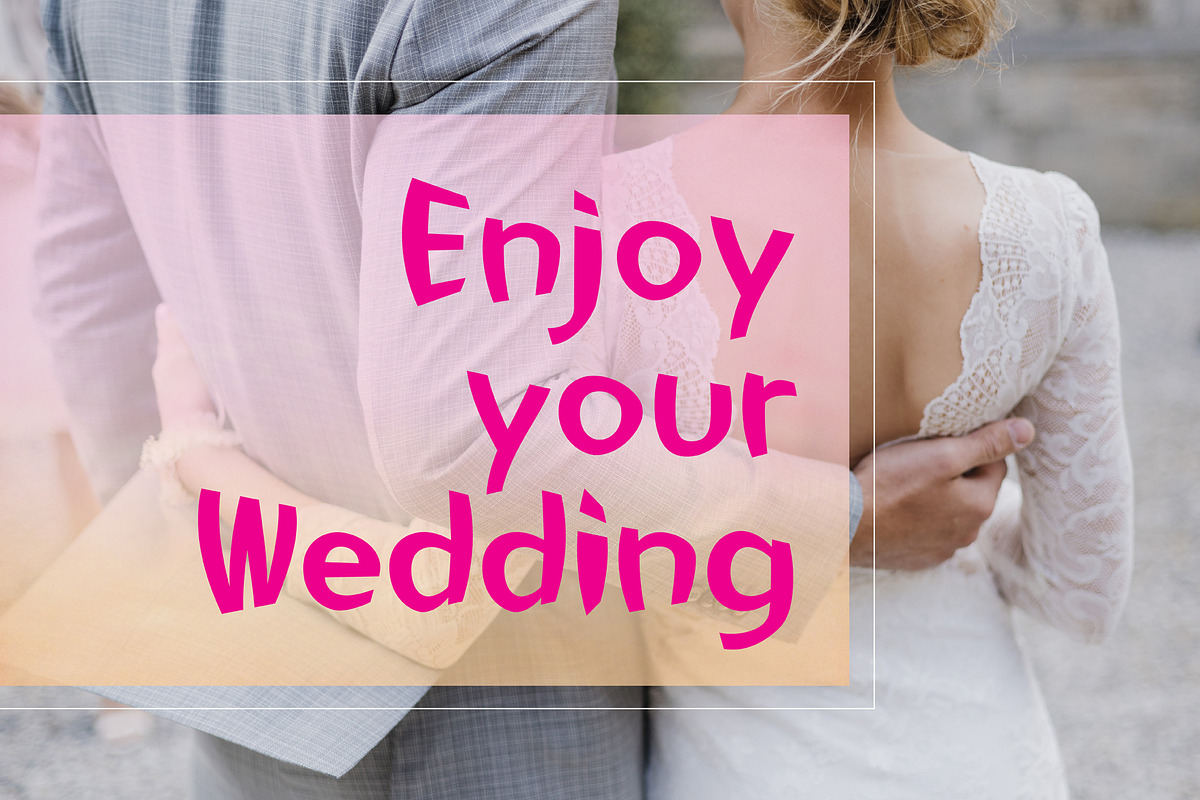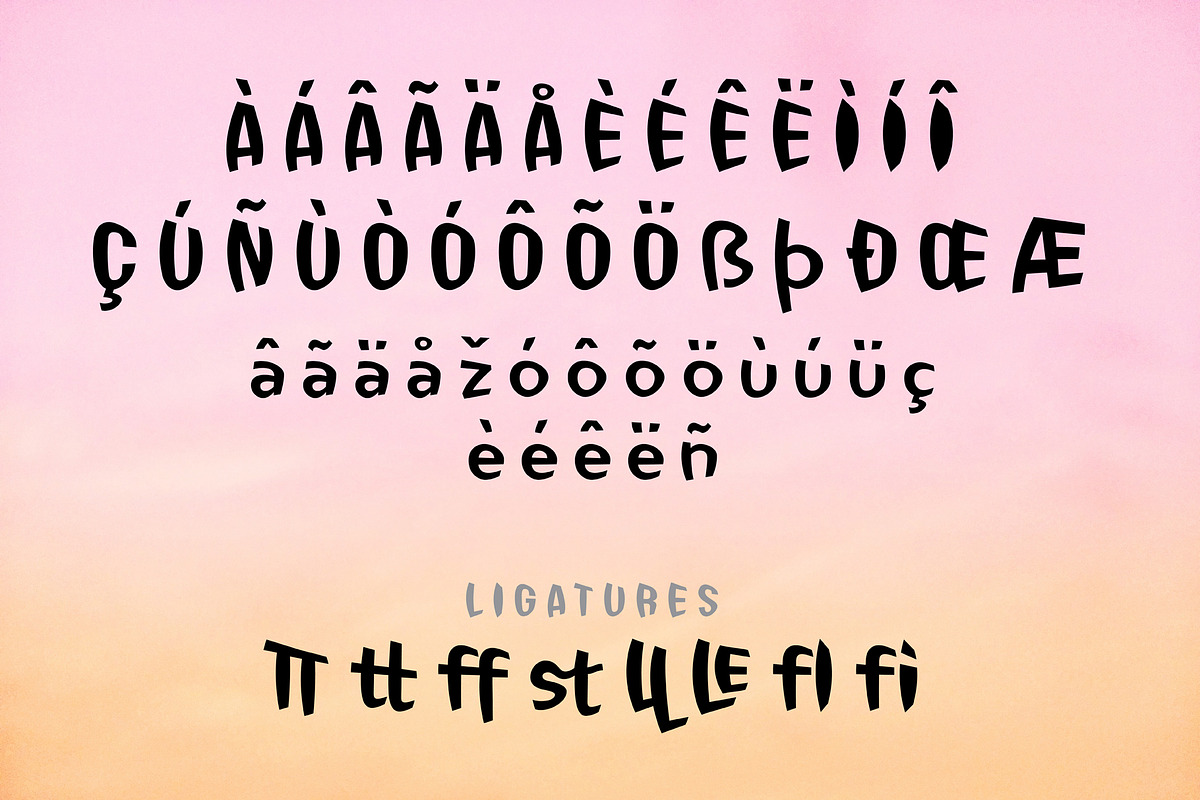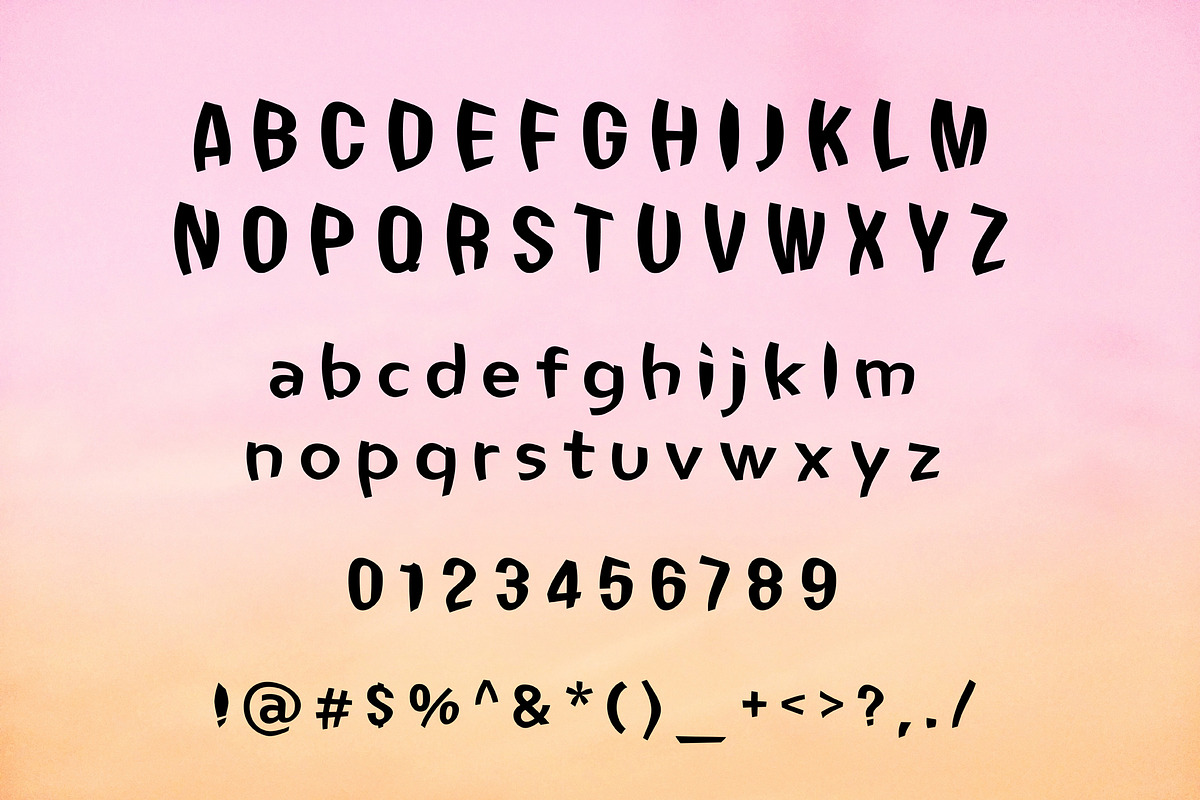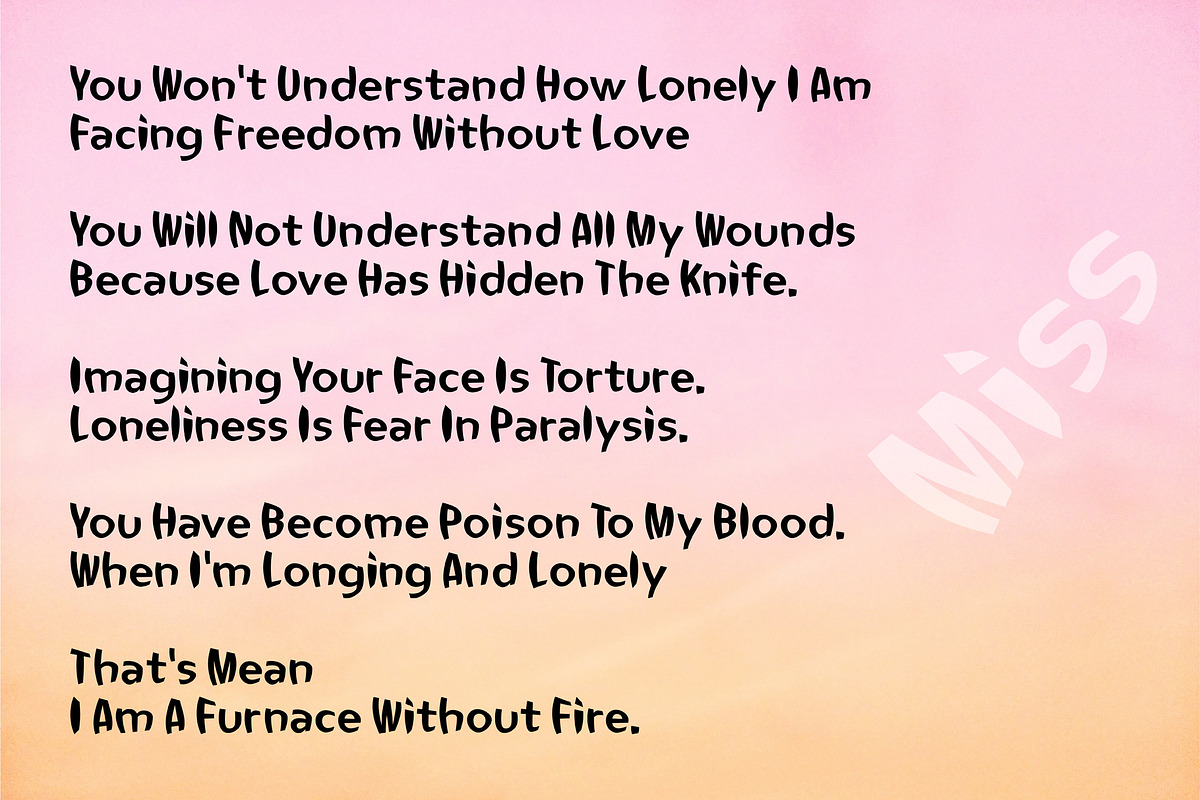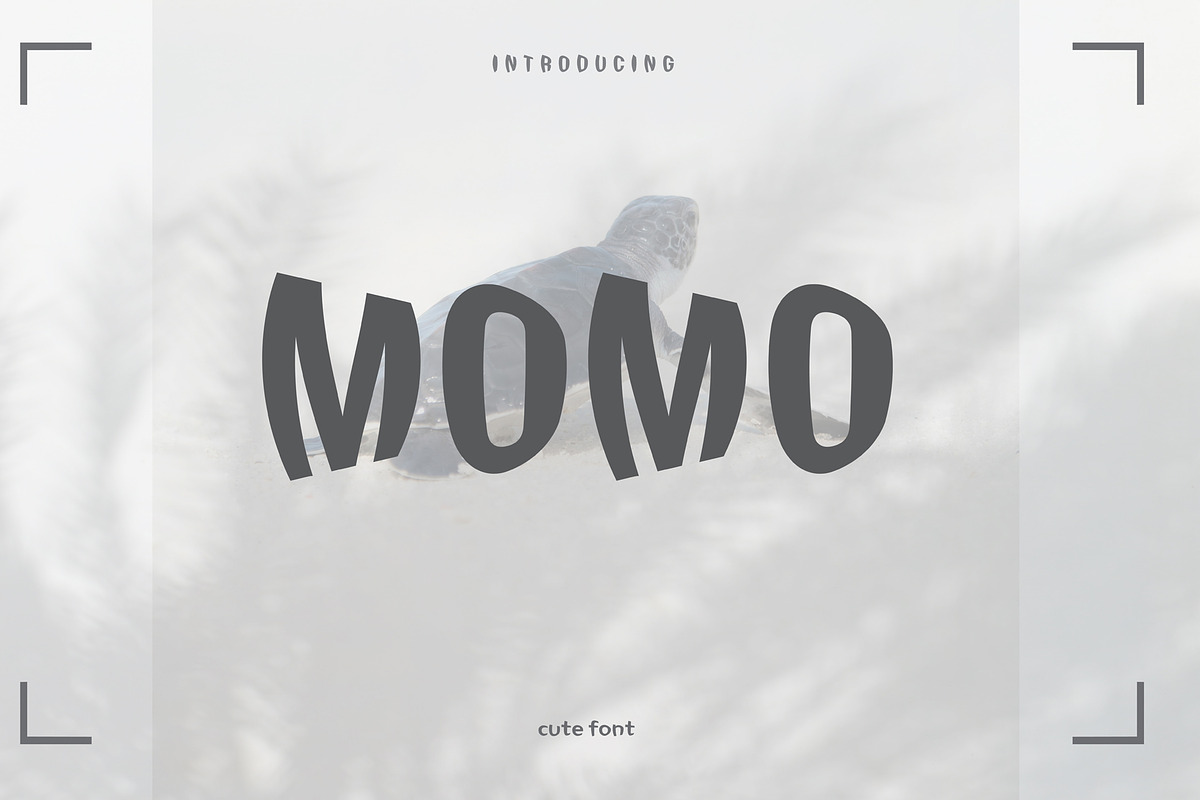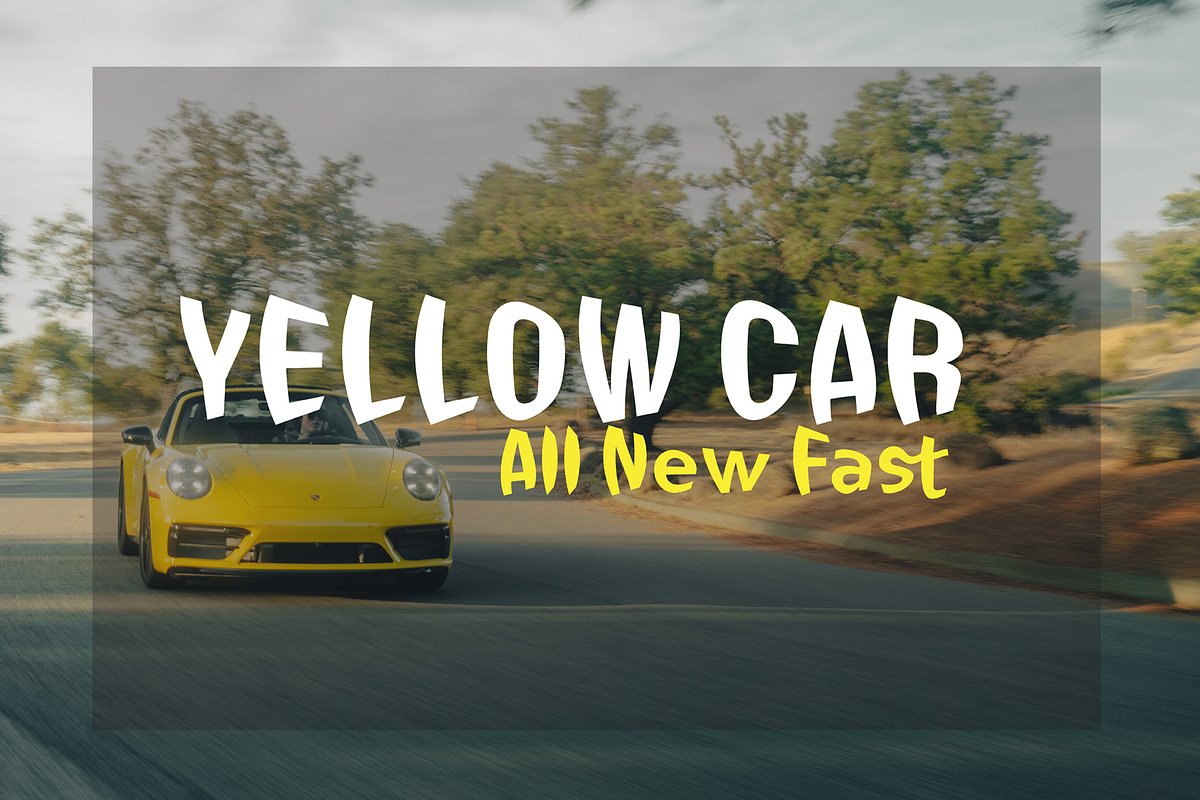
Momo
Momo is a bold and attractive typeface that comes in a sans-serif display with great contrast, making it easy to read, equipped with several ligatures to make this font more perfect Momo is a great choice for large designs, invitations, web, posters, billboards, magazines, advertisements, etc.